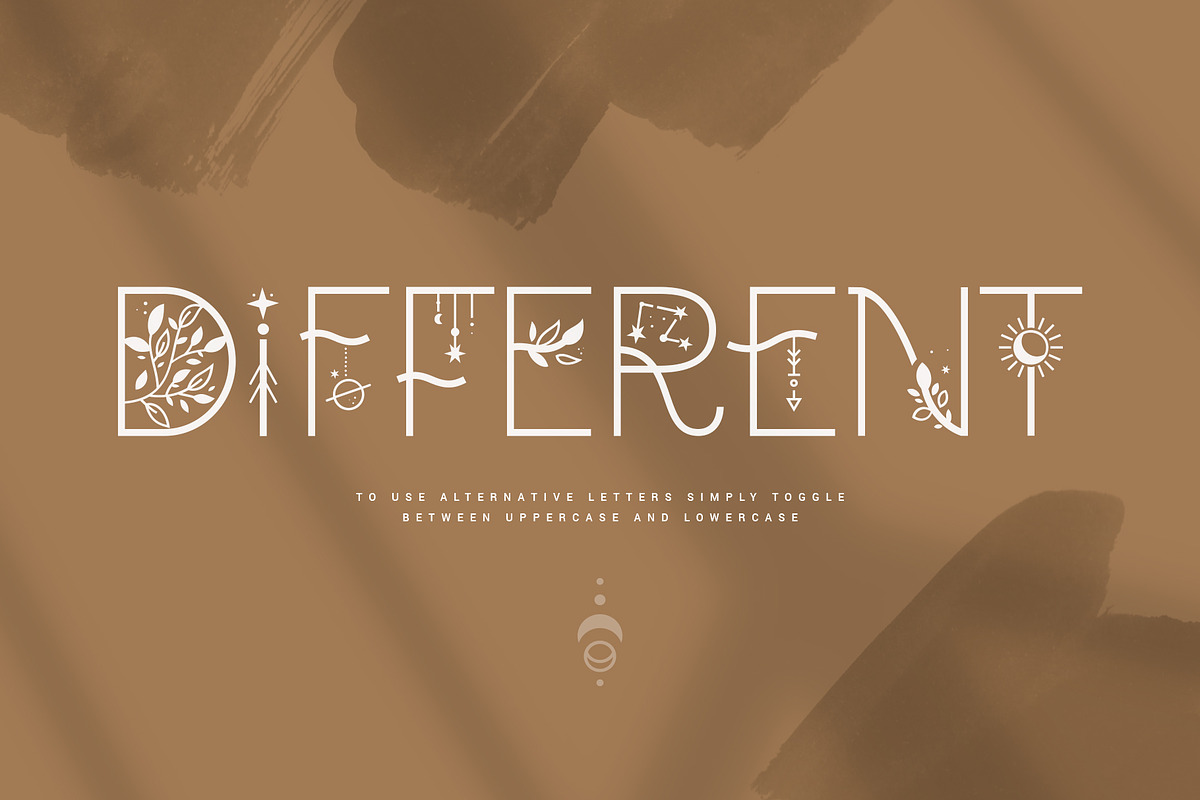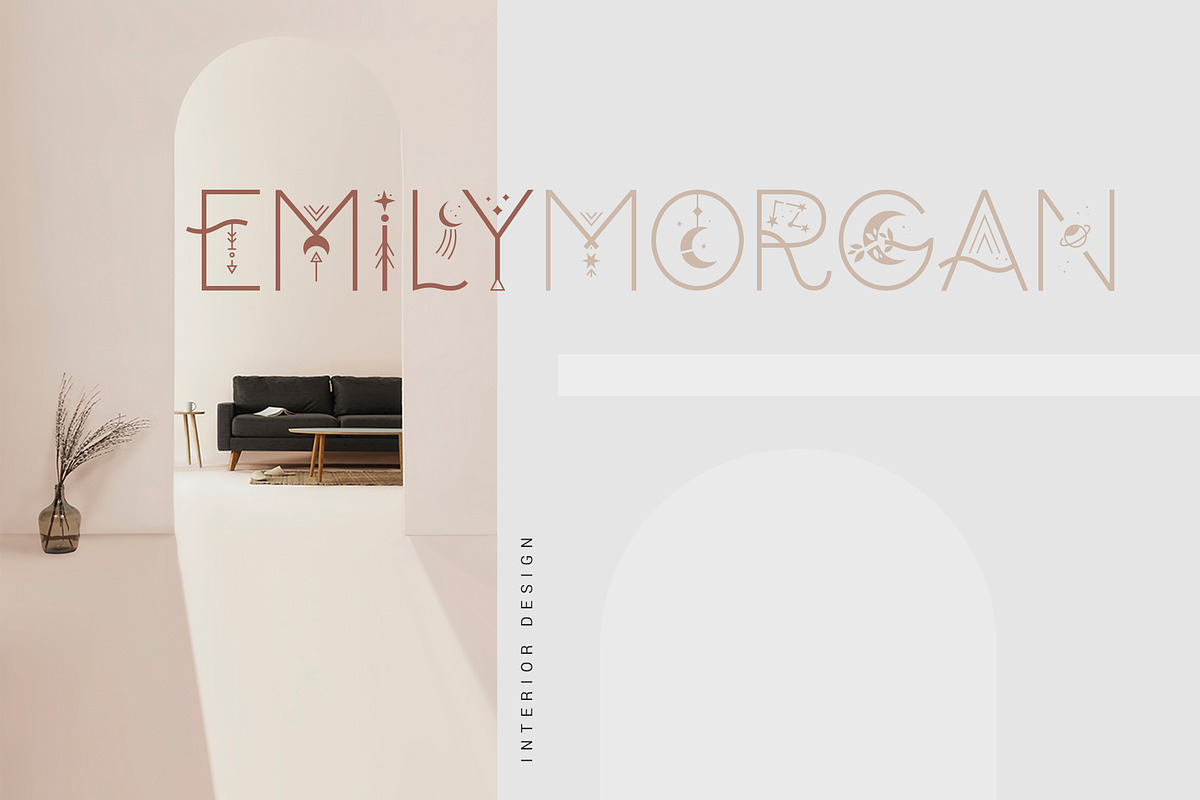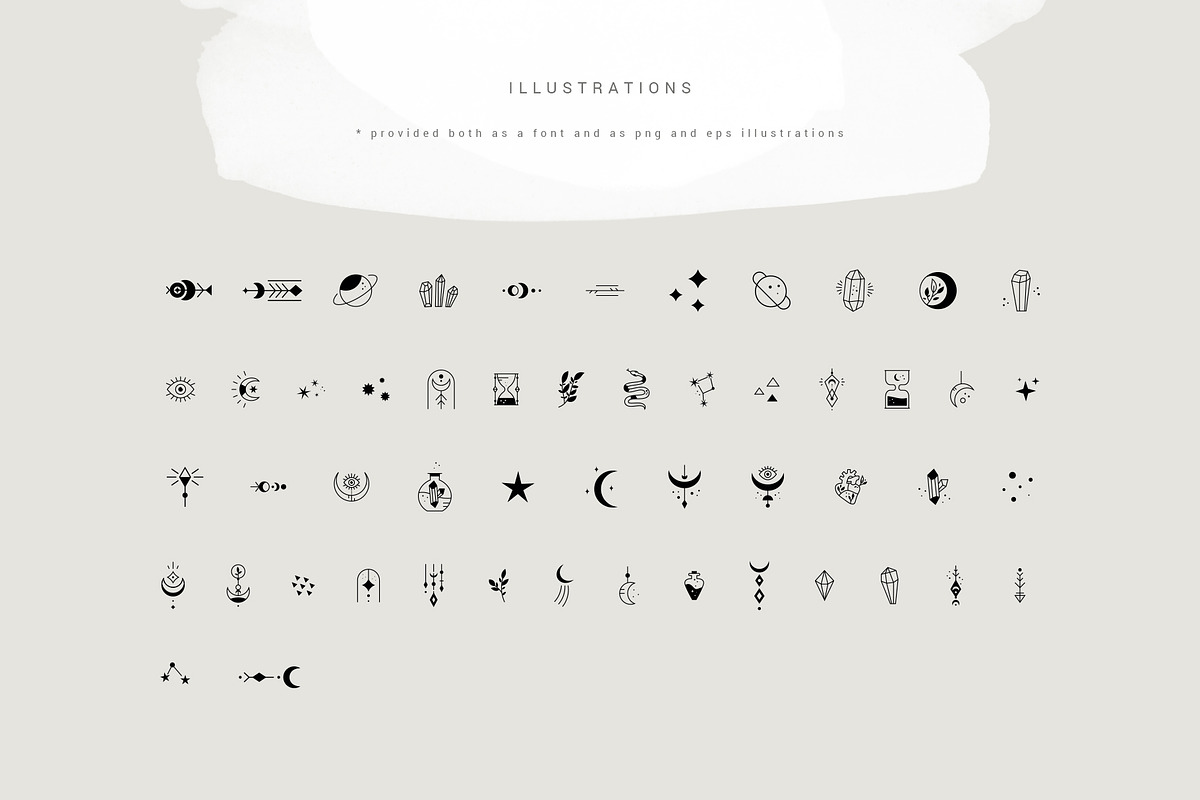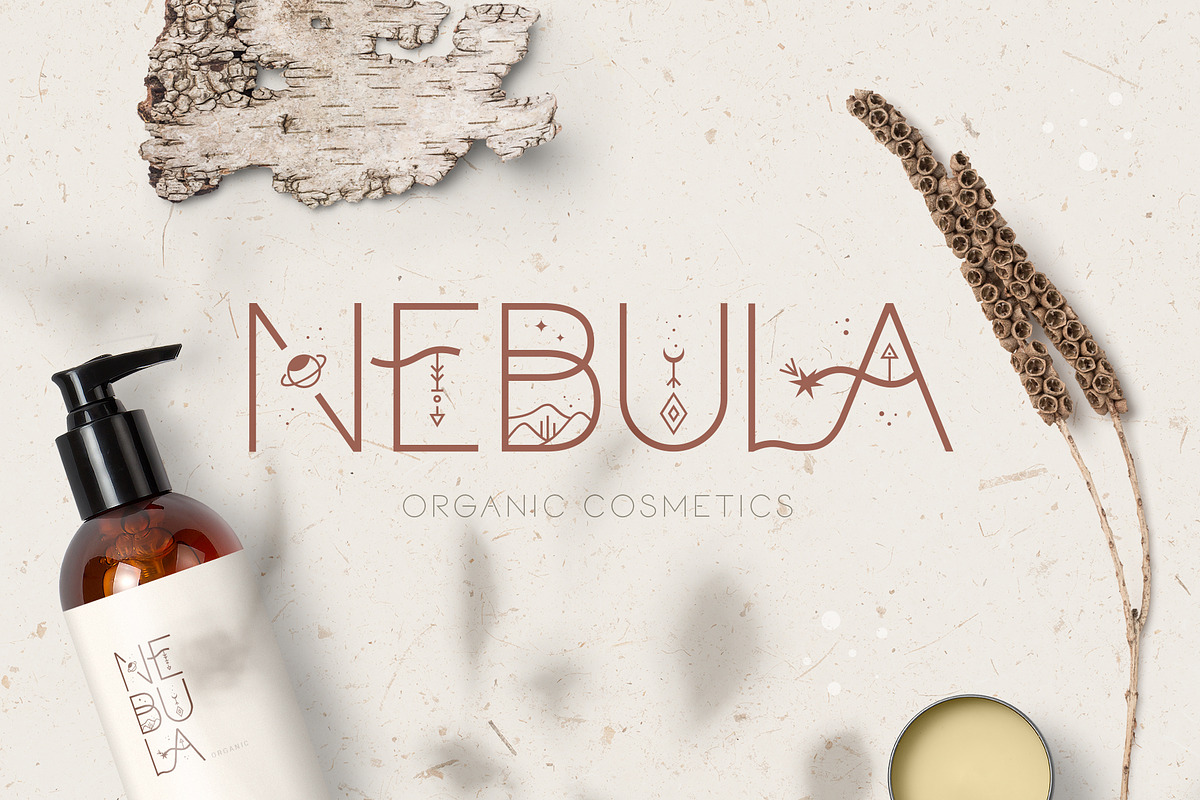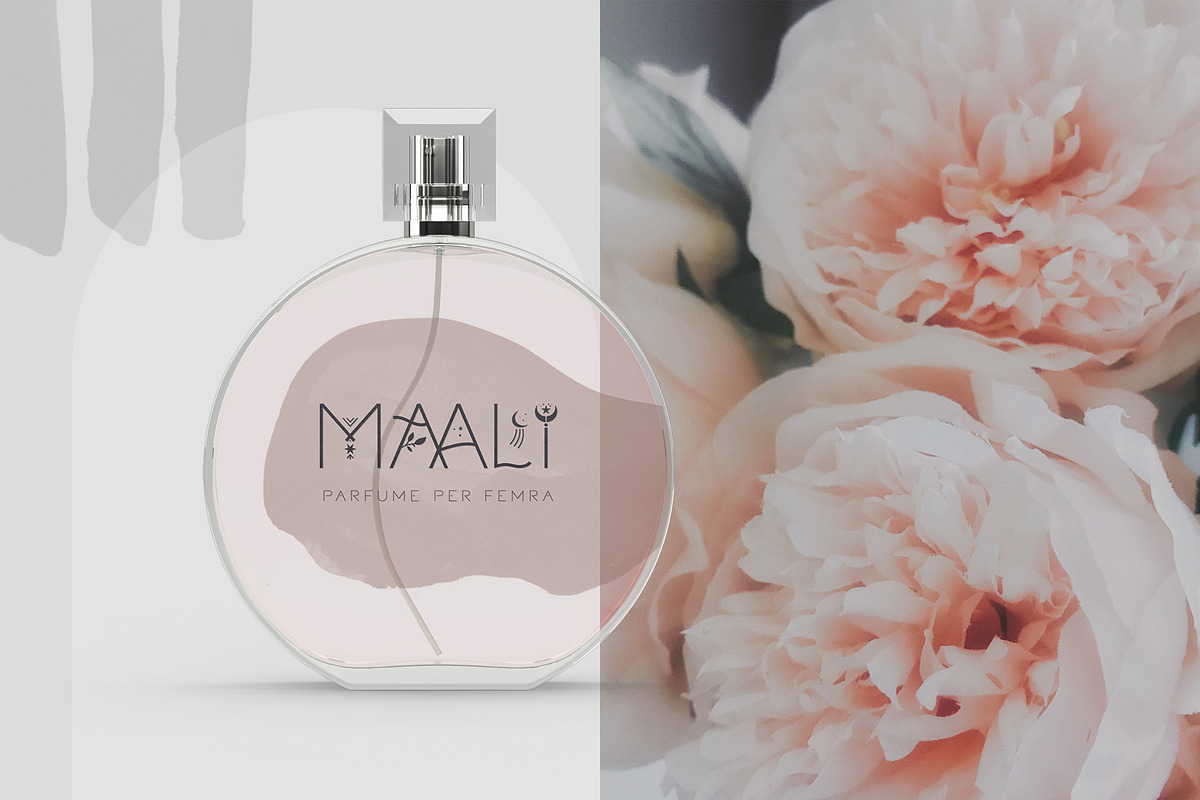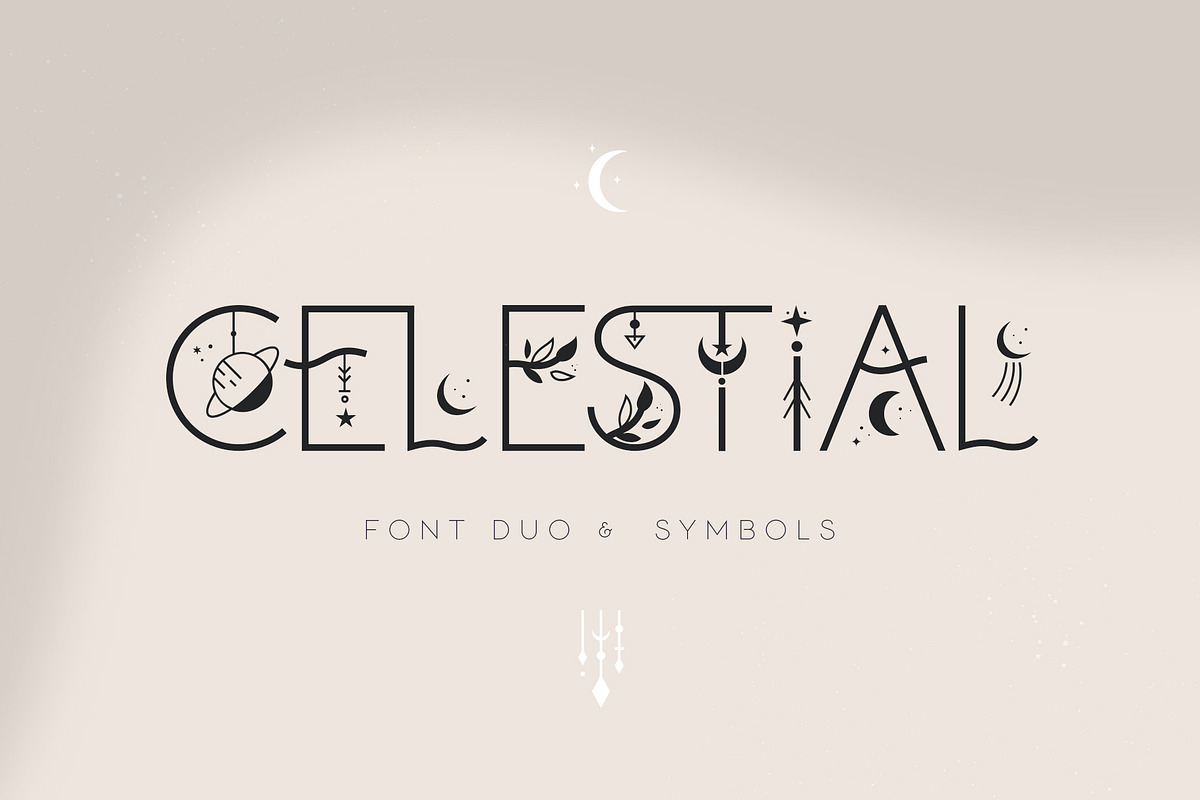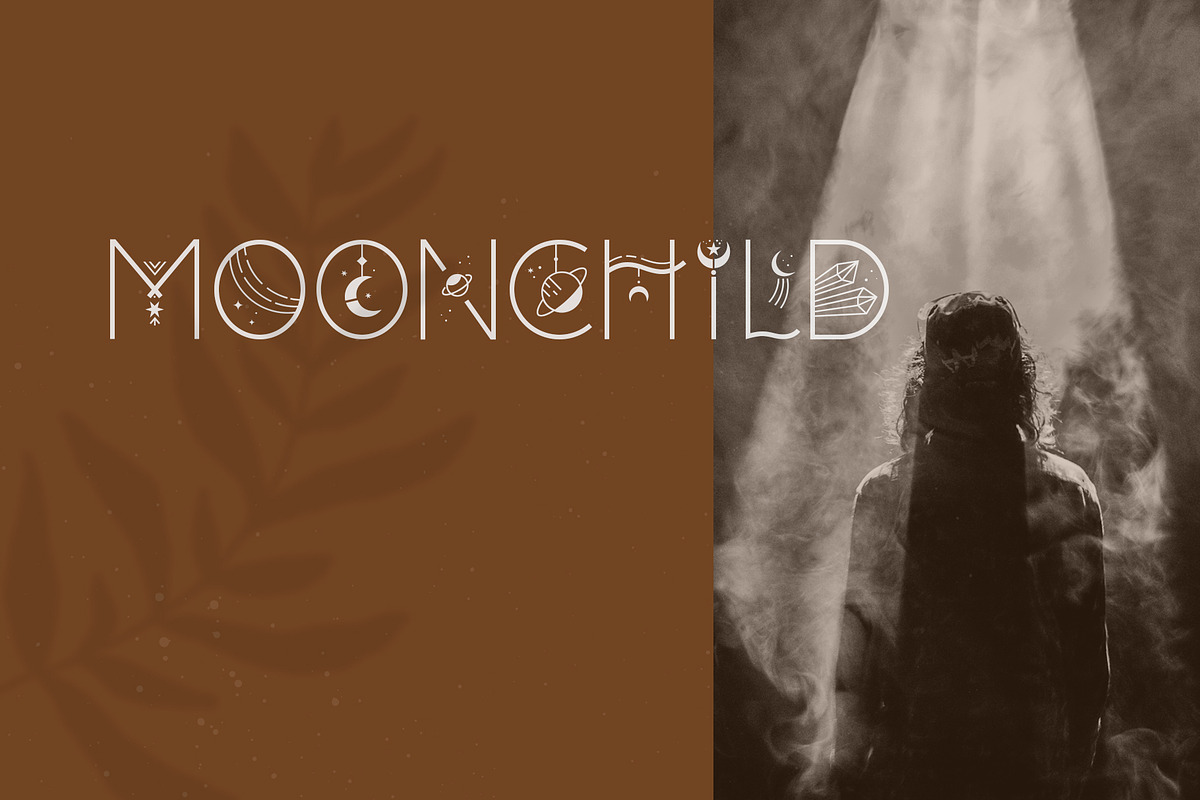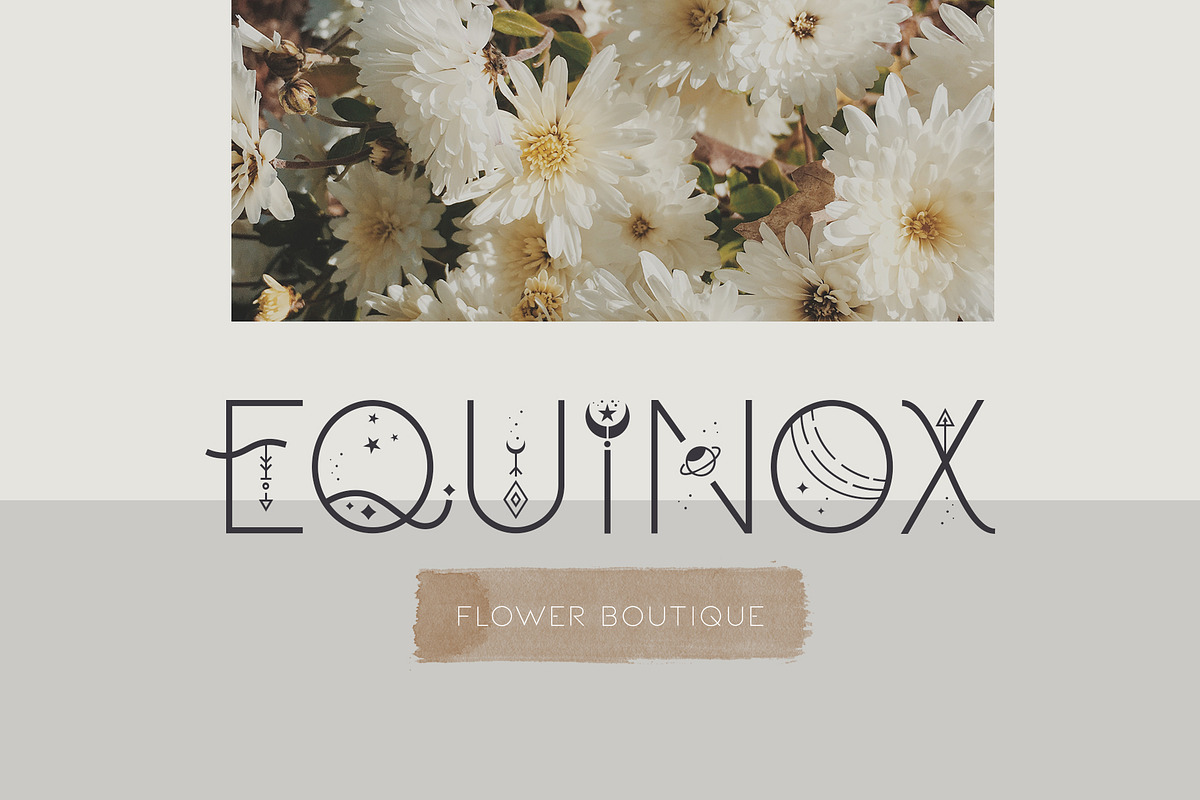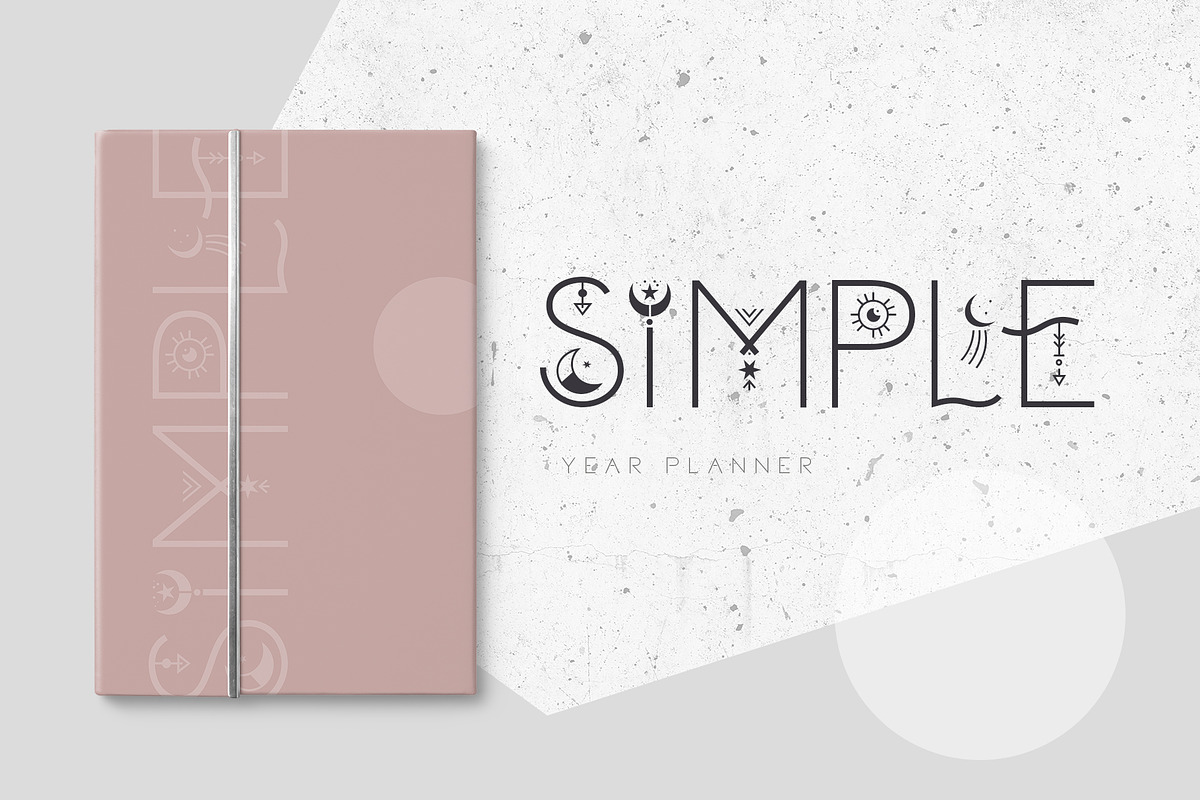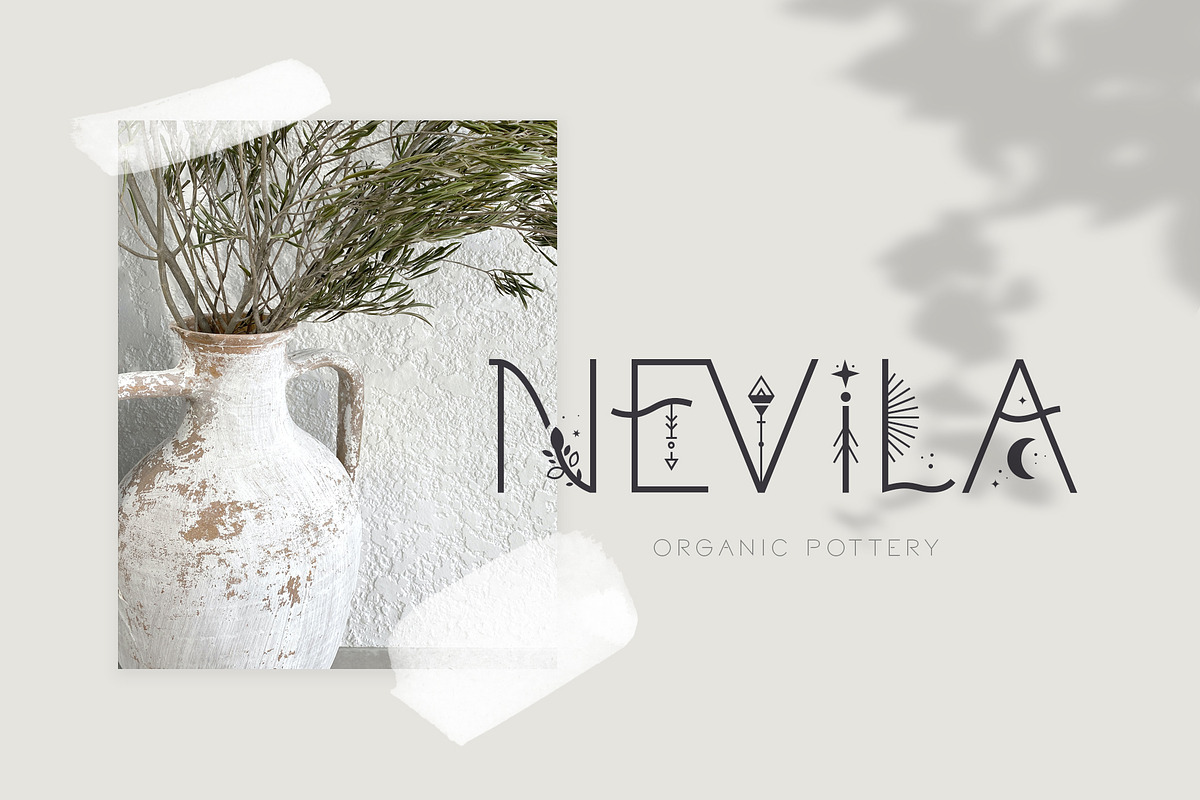
Celestial | Boho style font duo
Celestial is a modern duo of display uppercase fonts with very distinct character. It includes decorative & clean versions of the font plus additional illustrations that you will get as pictures and as a font.
Inspiration for Celestial came from boho style, mystery and astrology. Celestial will be perfect for logos, branding, holiday invitations, stationery, blog design, product packaging.
Decorative version of the font includes two variations of letters and it’s super easy to use them - just use lowercase for the first set and uppercase for the second.